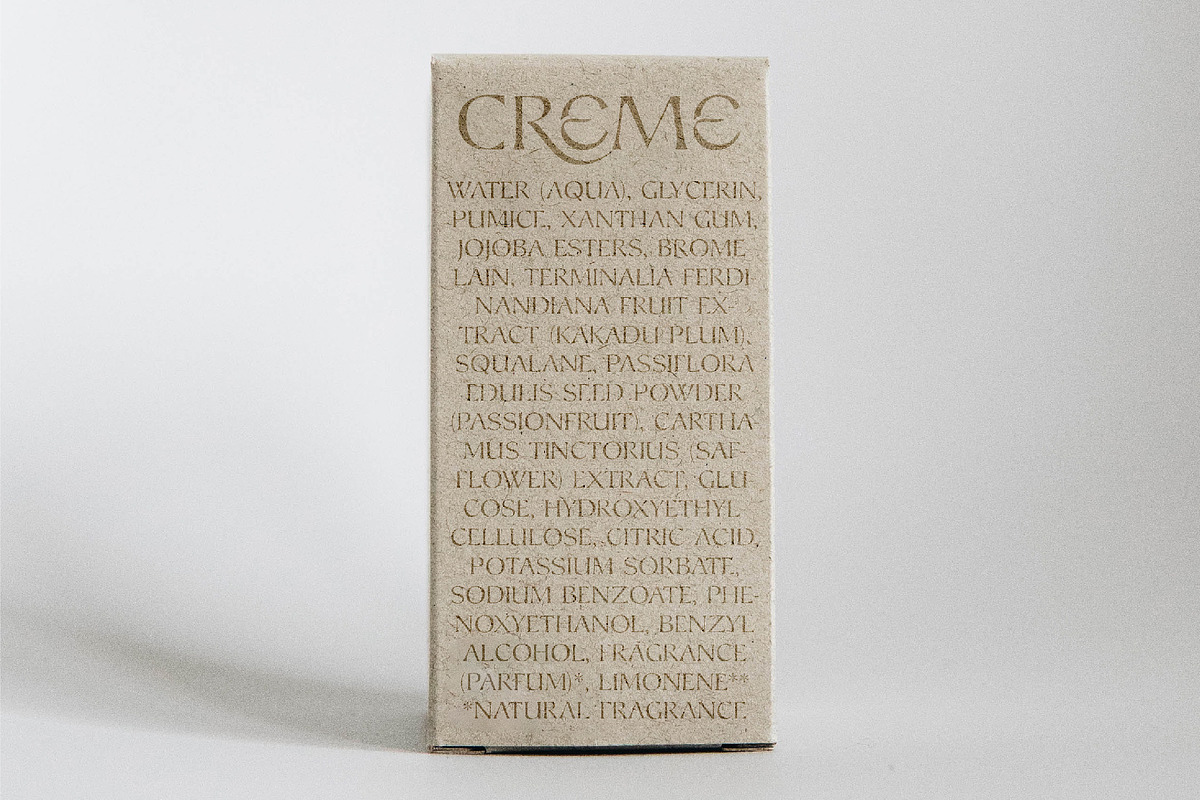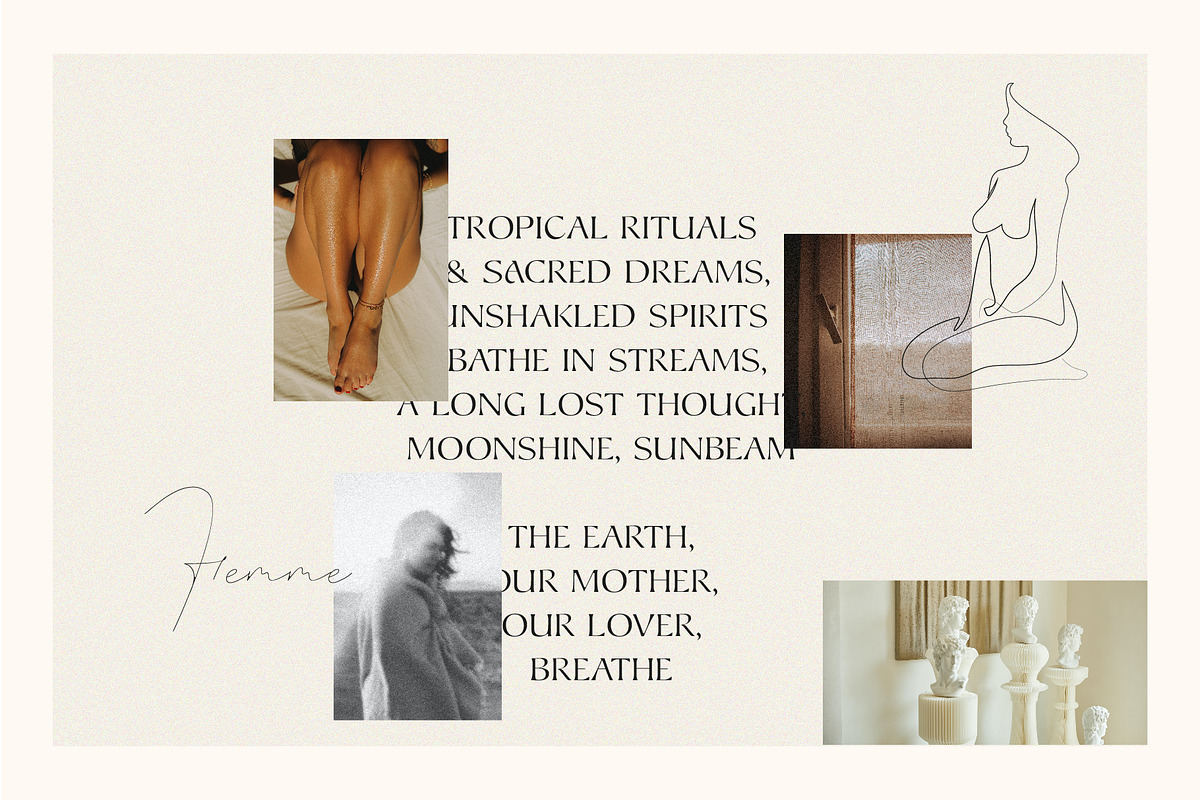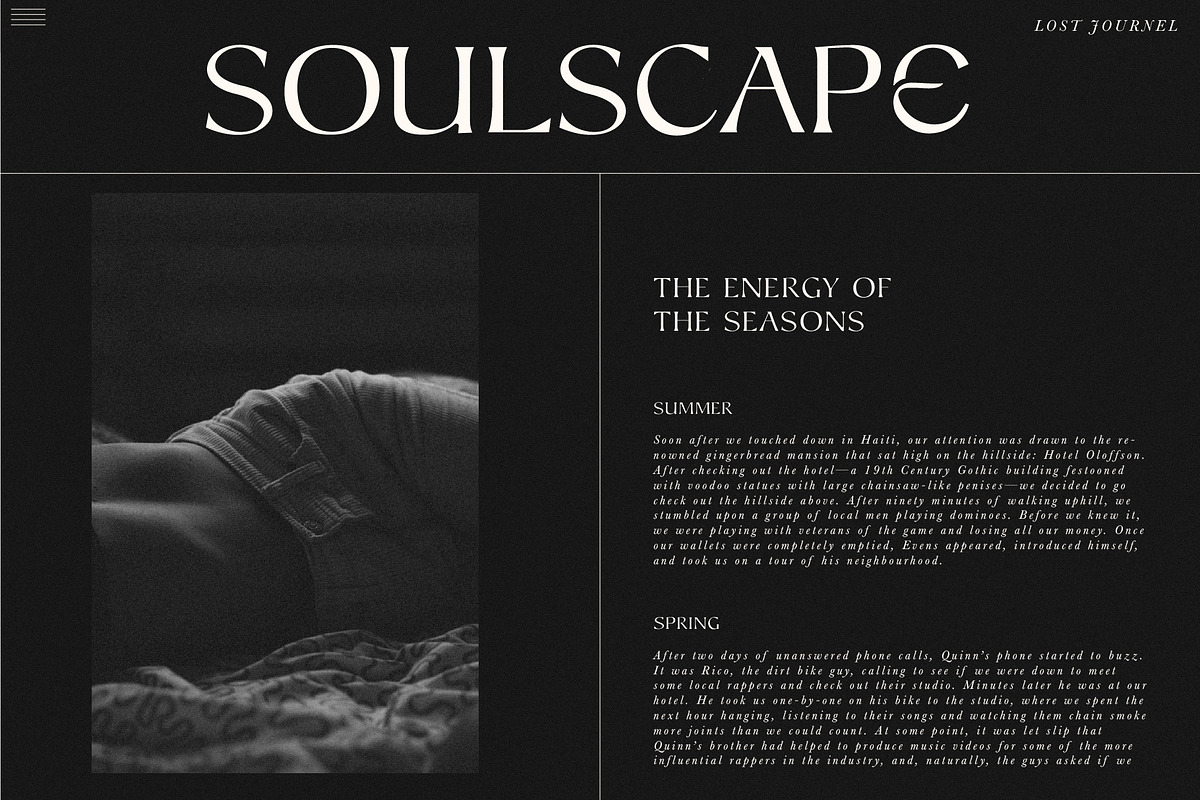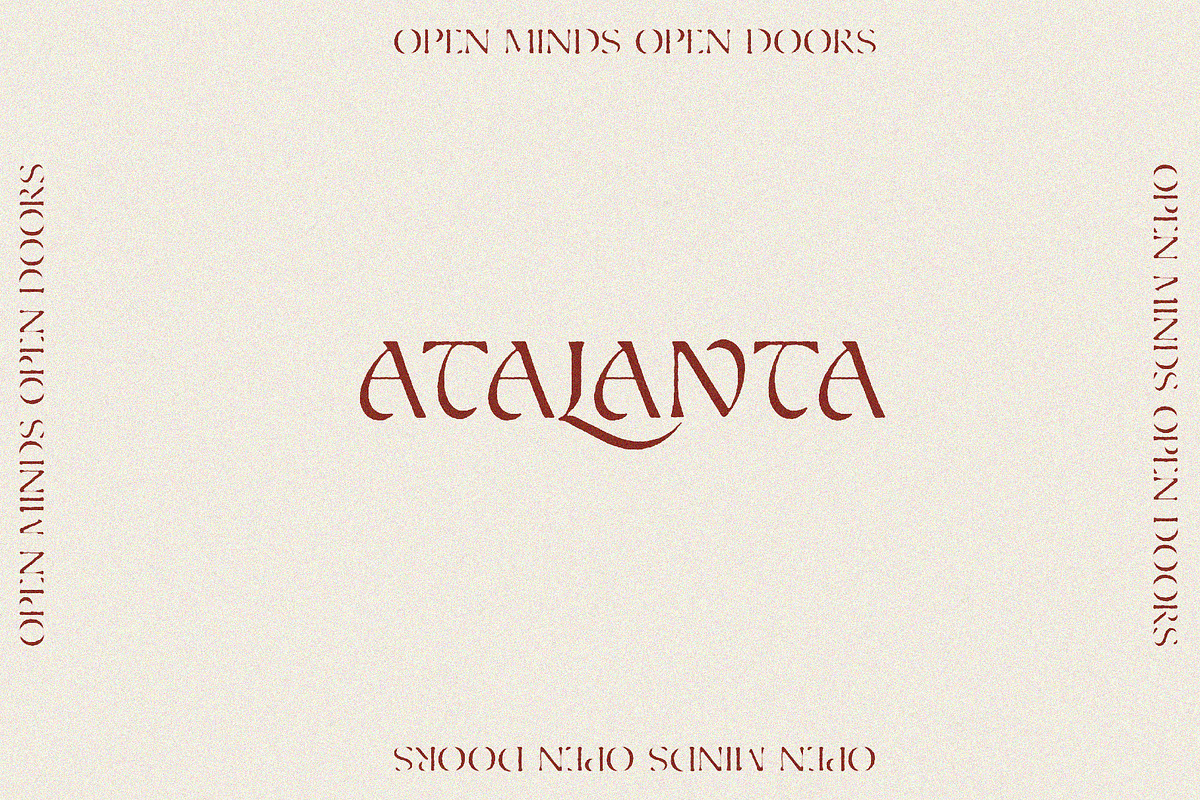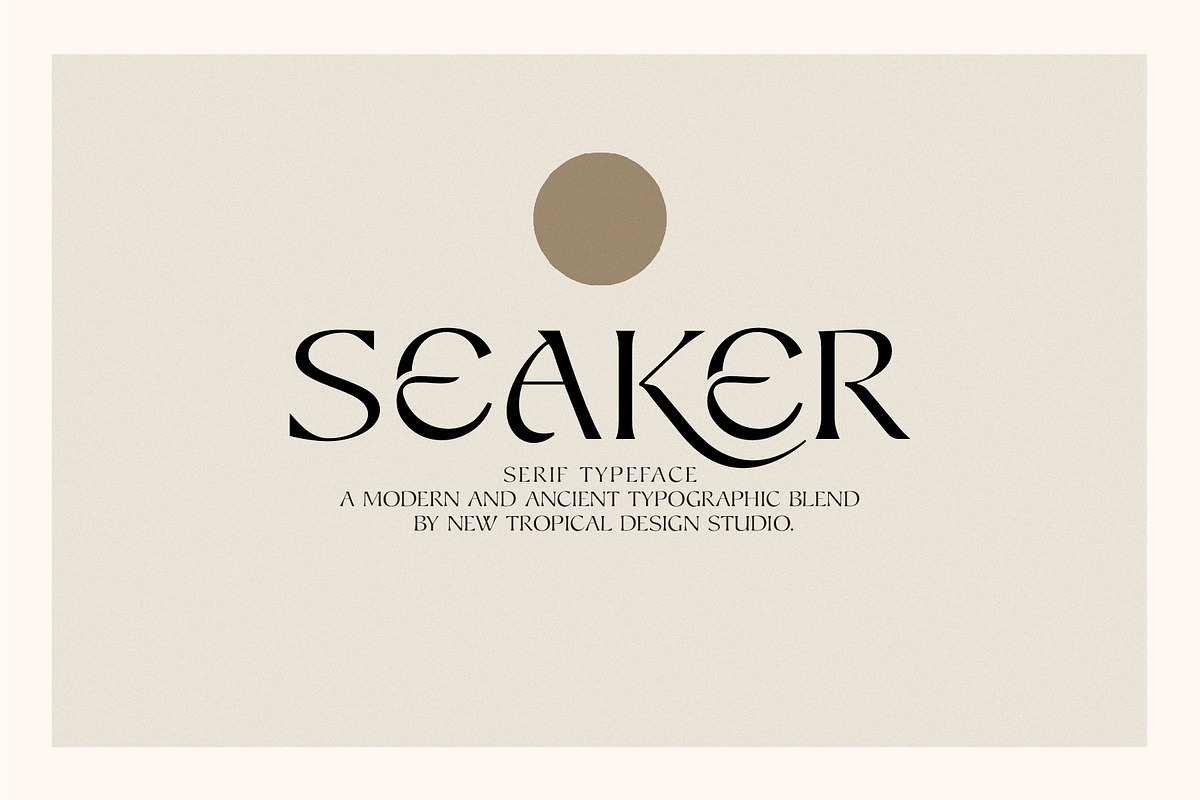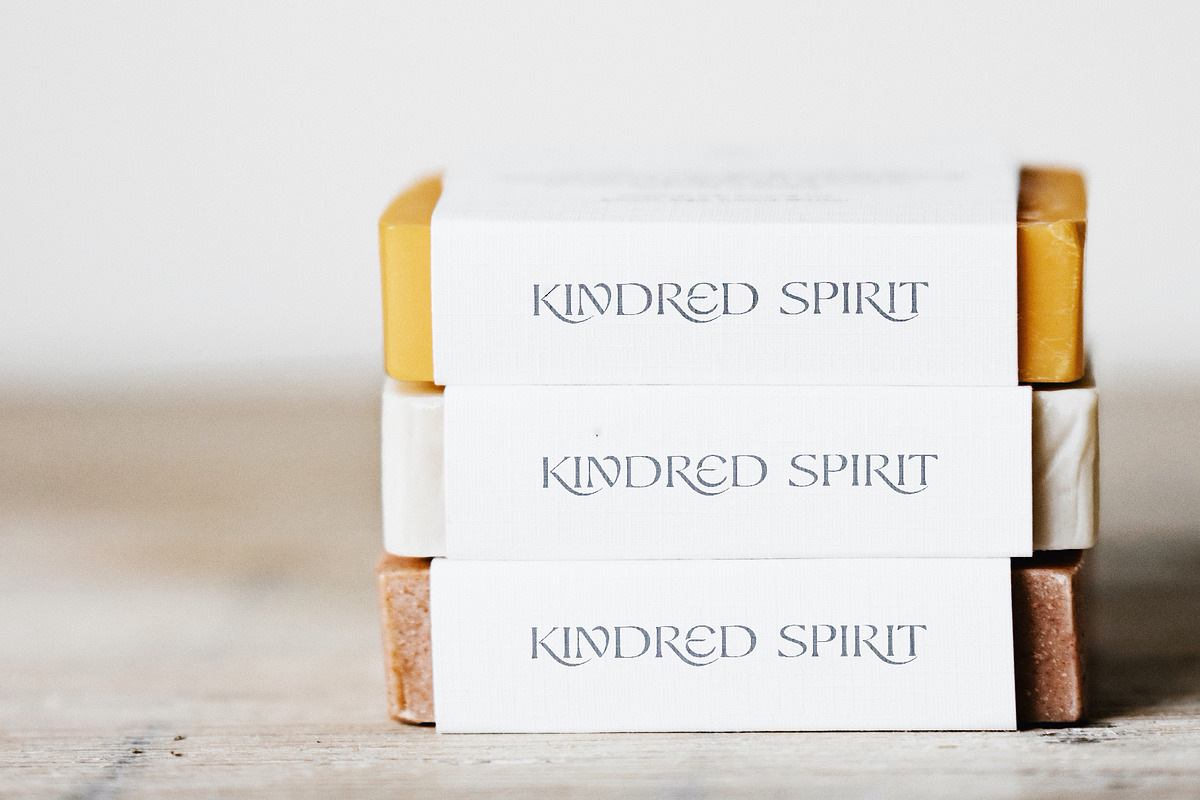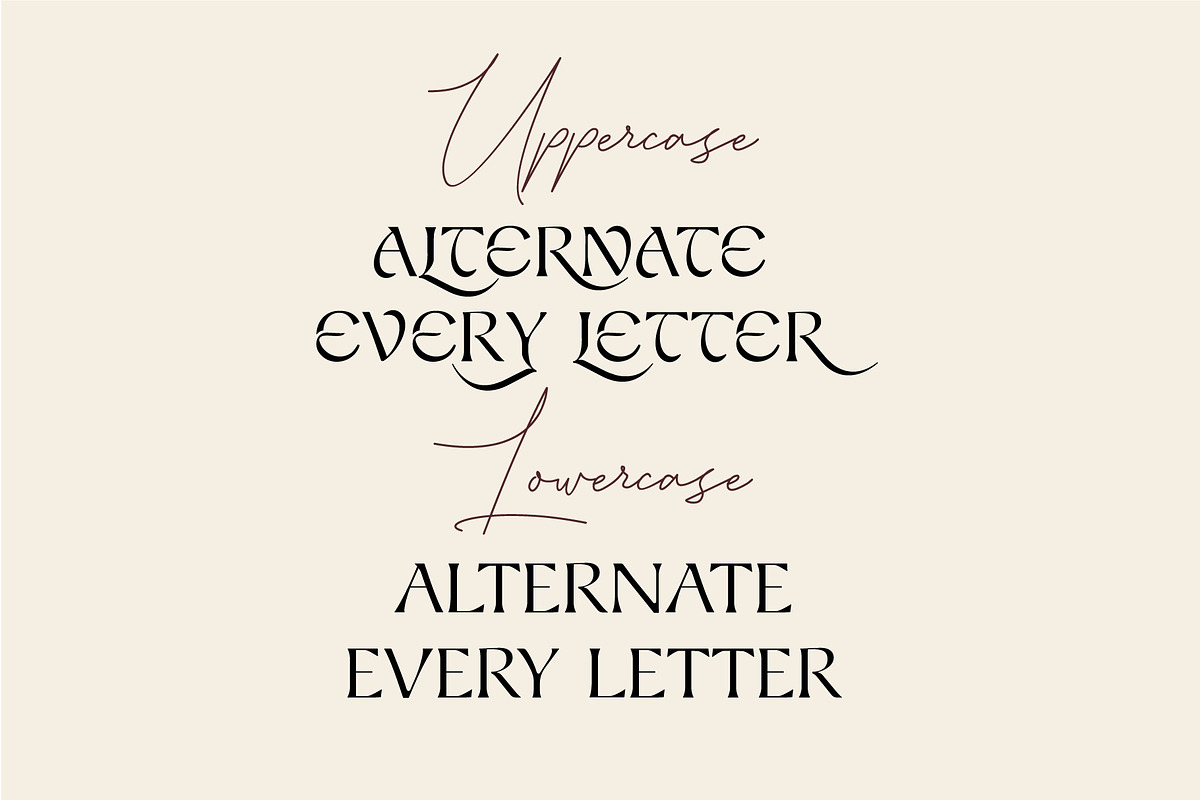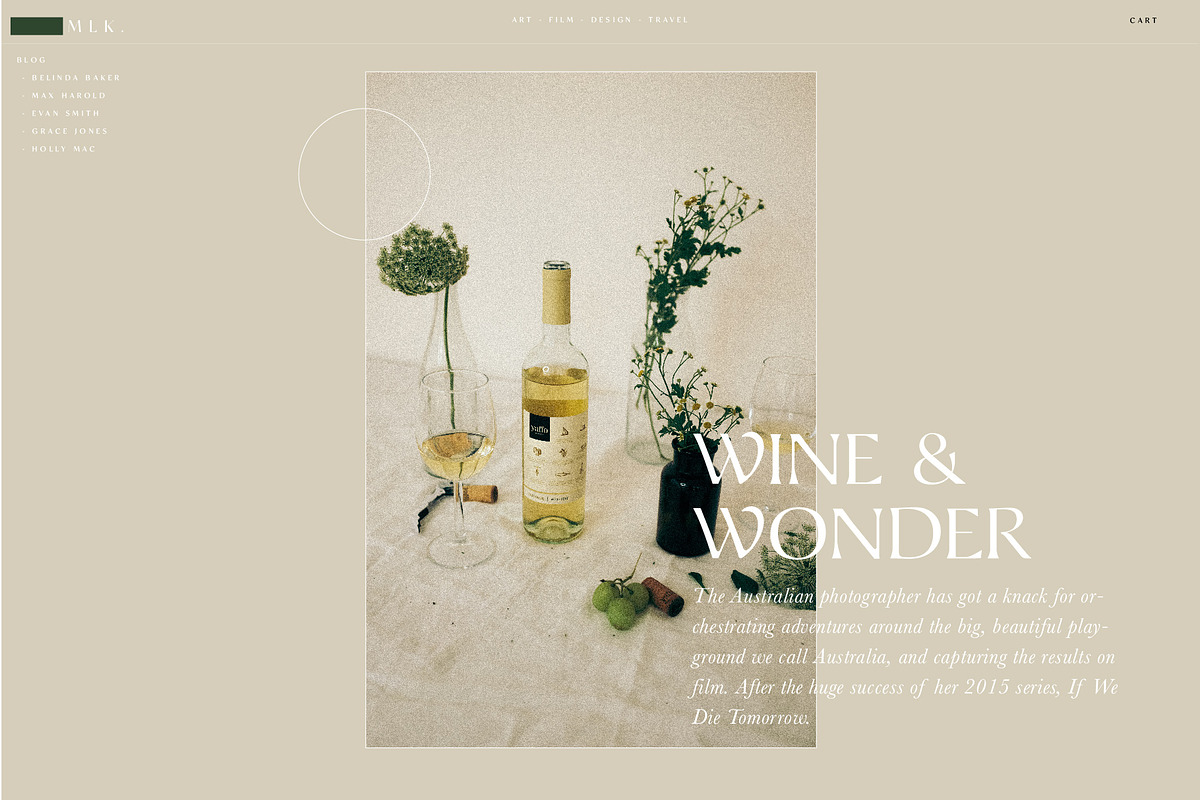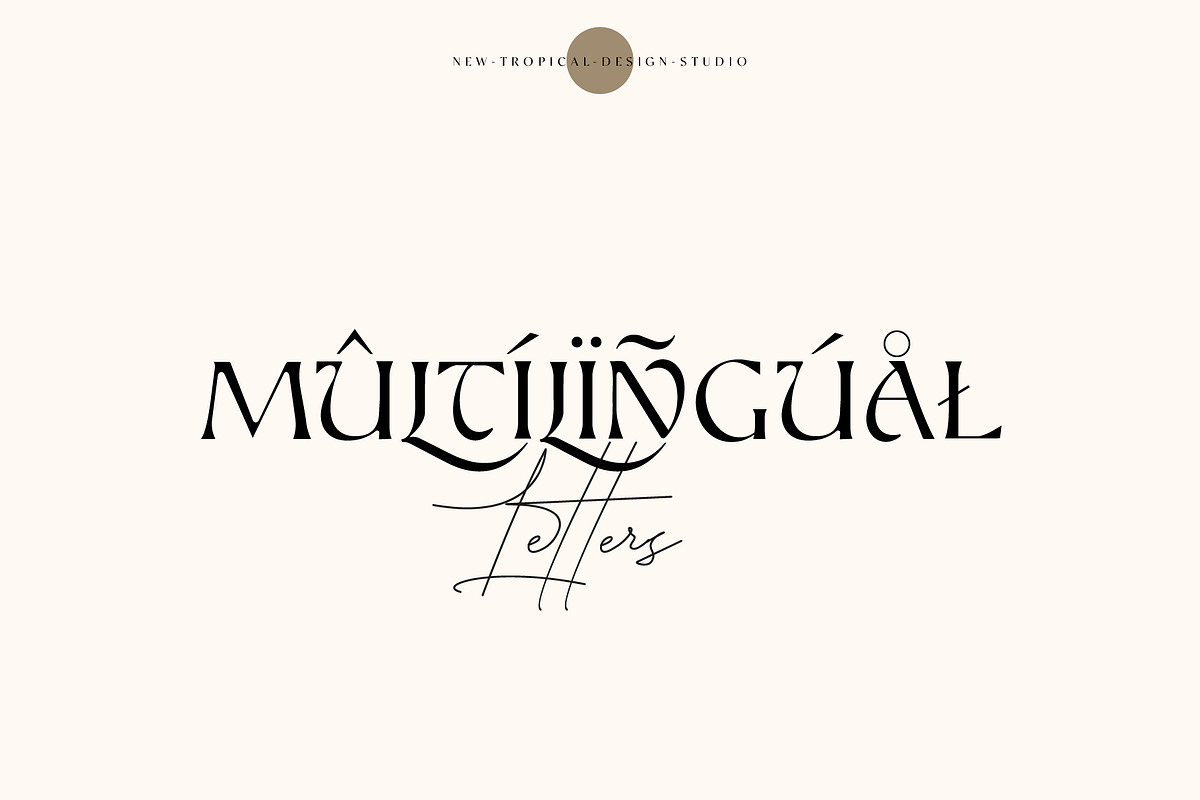
Seaker - Serif Typeface
Seaker blends modern and ancient typography to create a sense of nostalgic wonderlust. This spiritual serif comes with 2 uppercases to mix and match letters. Subtle irregularities have been added into the letters to give an aged/handmade aesthetic.
- Dual uppercase, numbers, punctuation
- Multilingual support ( including polish )